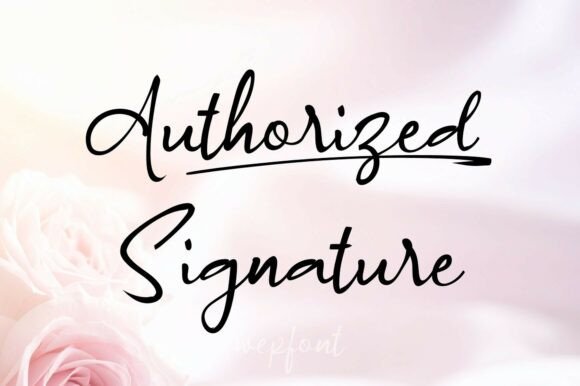
The Elusive Signature Font: A Designer’s Quest for Authenticity
I’ll never forget the project that made me fall in love with the Authorized Signature font. I was working on a luxury branding campaign, and my client requested a custom font that would evoke a sense of exclusivity and refinement. I scoured the internet, tried countless fonts, but nothing seemed quite right. That was until I stumbled upon Authorized Signature – an elegant, authentic, and sophisticated script font that beautifully mimics a genuine handwritten signature.
What Makes Authorized Signature Special?
The Authorized Signature font stands out from the crowd due to its natural, flowing connectivity, varied stroke pressure, and organic imperfections that give it a truly bespoke and human feel. The elegant loops and graceful transitions between letters suggest a confident and artistic hand, making it ideal for a signature-style aesthetic.
- ✨ Elegant, authentic, and sophisticated script font
- ✅ Natural, flowing connectivity and varied stroke pressure
- ✅ Organic imperfections for a truly bespoke feel
- ✅ Comprehensive set of uppercase and lowercase characters, numerals, and essential punctuation glyphs
- ✨ The font’s fluid yet legible form ensures excellent readability while imbuing text with a sense of genuine authorship and understated luxury.
- ✅ The Authorized Signature font is meticulously designed to maintain its distinct, personal touch.
- ✅ It’s perfect for adding a touch of elegance and sophistication to any design project.
While Authorized Signature is an exceptional font, there are a few minor quirks to be aware of:
- ⚠️ Some users may find the font’s organic imperfections and varied stroke pressure require a bit of getting used to.
- 🤔 The font may not be suitable for very large or very small text sizes, as its elegance and sophistication are best showcased at medium to large sizes.
A Brief Backstory: The Inspiration Behind Authorized Signature
The Authorized Signature font was inspired by the art of traditional calligraphy and the beauty of handwritten signatures. The designer aimed to create a font that would capture the essence of a genuine, handwritten signature, while also providing a sense of exclusivity and refinement.
| Font Name | Authorized Signature Font |
| Author | wep – Wahyu Eka Prasetya |
Q: What makes Authorized Signature unique?
A: Authorized Signature is unique due to its natural, flowing connectivity, varied stroke pressure, and organic imperfections that give it a truly bespoke and human feel.
Q: Is Authorized Signature suitable for body text?
A: While Authorized Signature is an elegant and refined font, it’s best suited for display text or headings. Its elegance and sophistication may not be suitable for large blocks of body text.